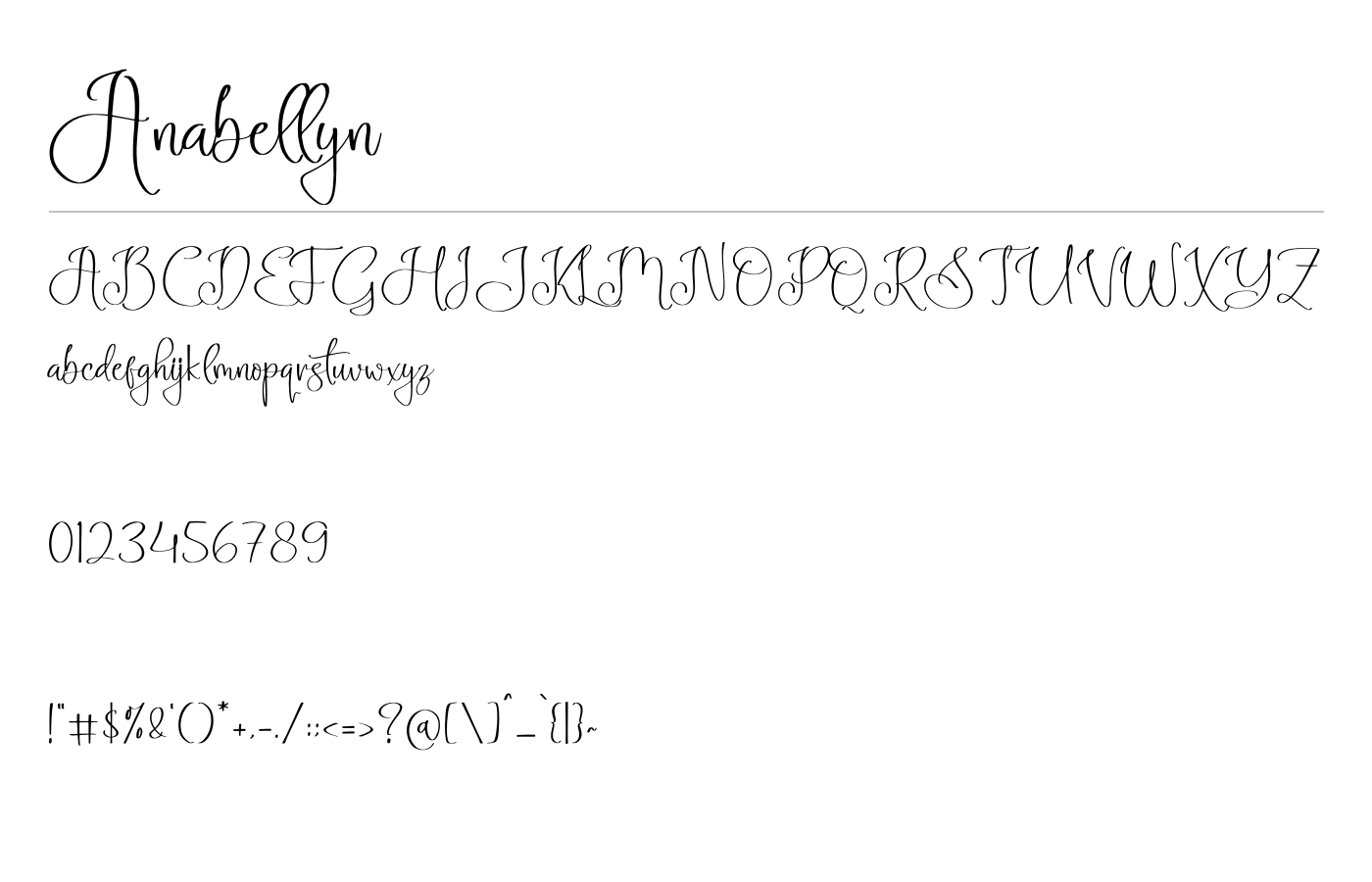
Anabellyn is an elegant script font featuring delicate, flowing letterforms with fine strokes and graceful swashes that create a sophisticated and romantic feel. Its light weight, slender structure, and ornamental curves make it perfect for invitations, branding, and decorative uses where a refined, feminine touch is desired. This font works beautifully in designs that aim to convey elegance and charm with a modern calligraphic style.
Anabellyn Font
About Anabellyn Font